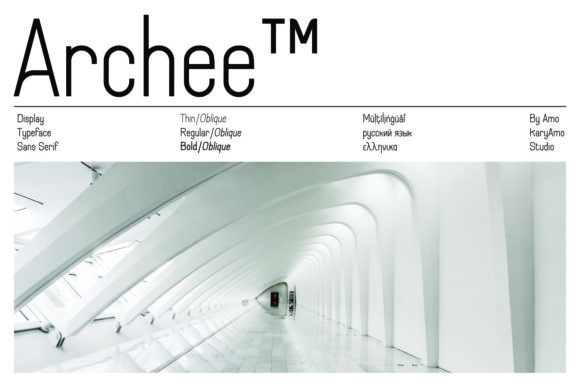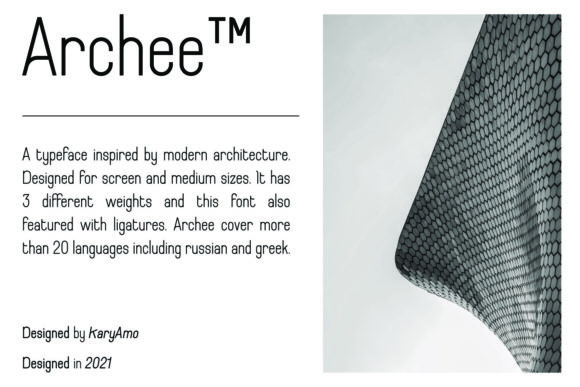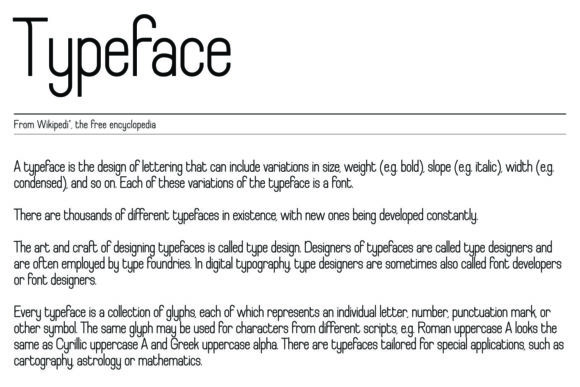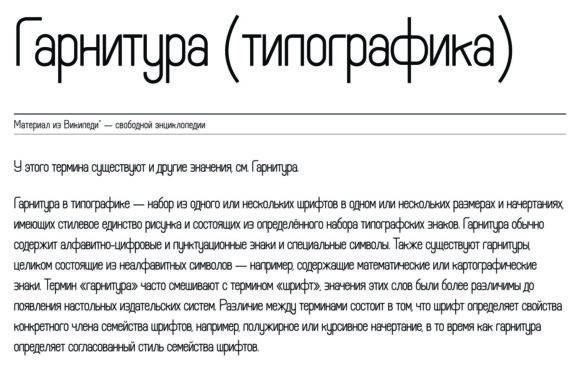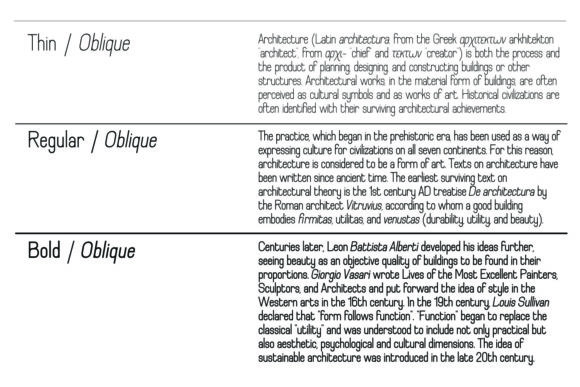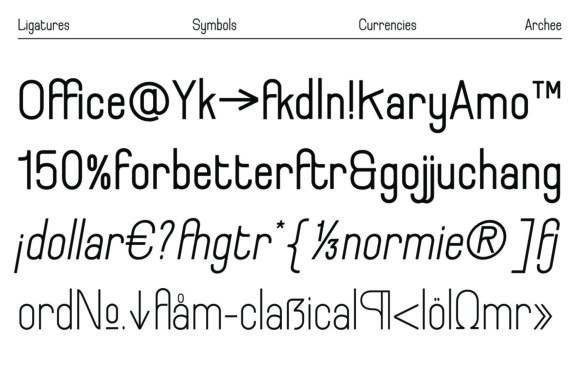
Introducing Archee™ Font: Elevate Your Designs with Modern Simplicity
In the world of typography, finding the perfect font that combines modernity with simplicity can be a daunting task. However, your search ends here with Archee™ Font, a contemporary sans serif font designed to transform your creative projects. With its clean lines and versatile nature, Archee™ is not just a font; it’s a tool that can elevate your designs to new heights. Whether you’re a professional designer or a crafty DIY enthusiast, Archee™ Font is about to become your new best friend.
The Essence of Archee™ Font
Archee™ Font embodies the perfect blend of modern aesthetics and simplicity. Its sans serif design ensures that your text remains clean and uncluttered, making it highly legible across various platforms and mediums. This font’s simplicity doesn’t compromise its impact; instead, it provides a versatile canvas that can adapt to a wide range of design needs. From branding and advertising to web design and crafting, Archee™ Font proves to be an incredibly adaptable asset.
One of the standout features of Archee™ Font is its versatility. It can seamlessly fit into an incredibly large set of projects. Here are a few examples of how you can utilize Archee™ Font:
- Branding and Logos: Create a lasting impression with a font that communicates modernity and approachability.
- Web Design: Enhance user experience with a clean and readable font that works well across all devices.
- Marketing Materials: From brochures to flyers, Archee™ Font ensures your message is conveyed with clarity and style.
- Crafting and DIY Projects: Add a professional touch to your handmade products with a font that’s both modern and simple.
Why Choose Archee™ Font?
There are several reasons why Archee™ Font should be your go-to choice for your design needs:
- Legibility: Its sans serif design makes it highly readable, even at smaller sizes.
- Adaptability: It fits well with a variety of design themes and styles.
- Modern Appeal: Instantly give your projects a contemporary look that appeals to a wide audience.
- Easy to Use: Archee™ Font is easy to integrate into your projects, regardless of the software or platform you’re using.
Adding Archee™ to Your Creative Ideas
- Pair it with Other Fonts: Experiment with font combinations to create visual interest.
- Play with Sizes: Use different sizes to create a hierarchy of information.
- Customize: Don’t be afraid to experiment with colors and styles to match your brand’s identity.
| Font Name | Archee™ Font |
| Author | KaryAmo |
Archee™ Font is more than just a typeface; it’s a design solution that brings modern simplicity to your projects. Its versatility, legibility, and contemporary appeal make it an invaluable asset for designers and crafters alike. By incorporating Archee™ Font into your creative process, you’re not just choosing a font; you’re elevating your designs to stand out in a crowded space. So, add Archee™ Font to your toolkit today and witness how it transforms your creative ideas into stunning realities.